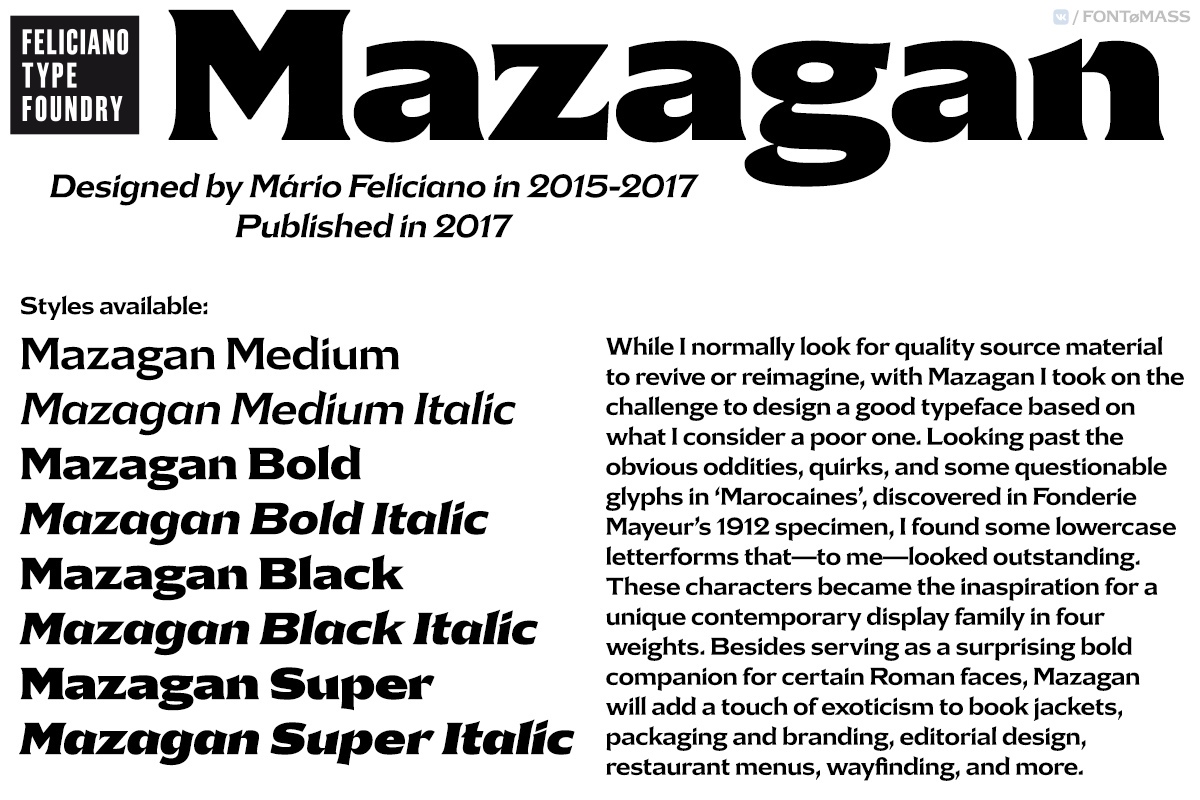
Mazagan Font
Mazagan Font is perfect for exotic travel branding, luxury resort marketing, international cuisine restaurants, cultural event materials, Moroccan-themed designs, hospitality industry communications, artisanal product packaging, and sophisticated advertising campaigns. This enchanting typeface works beautifully in both digital applications and print media where cultural sophistication and exotic elegance are central design elements.
What makes Mazagan Font so exciting is its masterful capture of North African and Middle Eastern typographic traditions with contemporary refinement that instantly transports viewers to exotic destinations and luxurious cultural experiences. The font features distinctive letterforms with elegant curves, sophisticated proportions, and subtle ornamental details that evoke the rich heritage of Moroccan craftsmanship and Islamic calligraphy. Its exotic personality and cultural authenticity make it ideal for brands seeking to communicate luxury travel experiences, cultural appreciation, and sophisticated international appeal while maintaining excellent readability and professional quality.
The Mazagan Font family includes multiple stylistic variations from light to bold weights, along with decorative alternates and cultural ornamental elements. Each style maintains the typeface's exotic character while offering comprehensive character sets including international numerals, culturally-inspired punctuation marks, and special symbols designed to enhance luxury travel communications and cultural branding efforts across diverse global markets.
This remarkable typeface represents the perfect fusion of cultural heritage and contemporary luxury design for hospitality and travel industries. Whether you're developing luxury hotel identities, creating exotic destination marketing materials, or designing cultural celebration events, Mazagan Font Free Download provides the sophisticated elegance and versatility needed to create memorable cultural experiences. The font's Moroccan-inspired aesthetic makes it particularly effective for luxury resorts, international restaurants, travel agencies, and businesses celebrating cultural diversity and exotic luxury.
The carefully crafted cultural details and optimized international performance in Mazagan Font ensure both authentic elegance and clear communication across all applications. Its sophisticated presence makes it perfect for luxury branding, exotic marketing campaigns, and cultural communications where its full exotic character can create emotional connections with audiences seeking sophisticated international experiences and cultural authenticity.